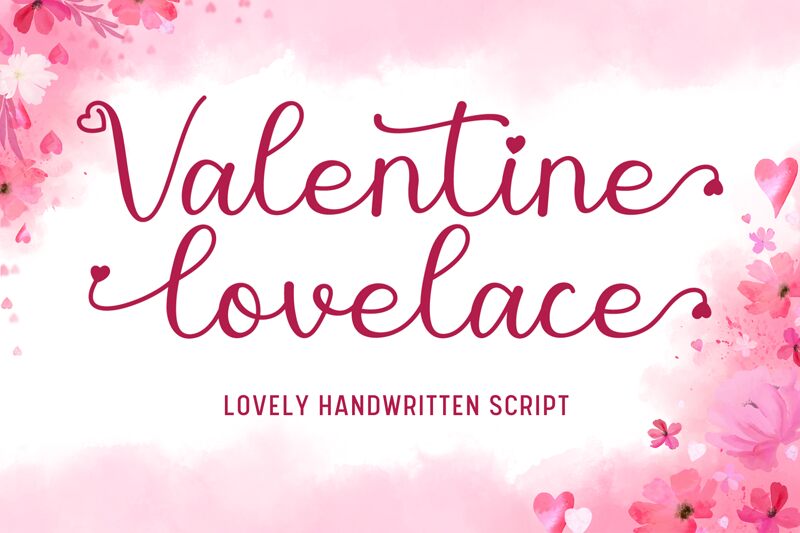
Valentine Lovelace
Valentine Lovelace font by AEN Creative Studio is a free handwritten holiday typeface that captures the feeling of a love note penned slowly by hand. Its airy loops, soft curves, and tiny heart touches at the tips of letters give it a whimsical, storybook charm without feeling childish. The strokes are slim and inky, so even longer phrases feel light and breezy instead of heavy or crowded.
Using Valentine Lovelace font, your Valentine cards, wedding signage, bridal shower invites, gift tags, social media quotes, and romantic logos gain a cozy, handwritten warmth that feels genuinely personal. This free font shines when set large on covers and headlines, then paired with a clean sans serif for small supporting text. Keep plenty of breathing room around it, and let those delicate curls and hearts do the talking.